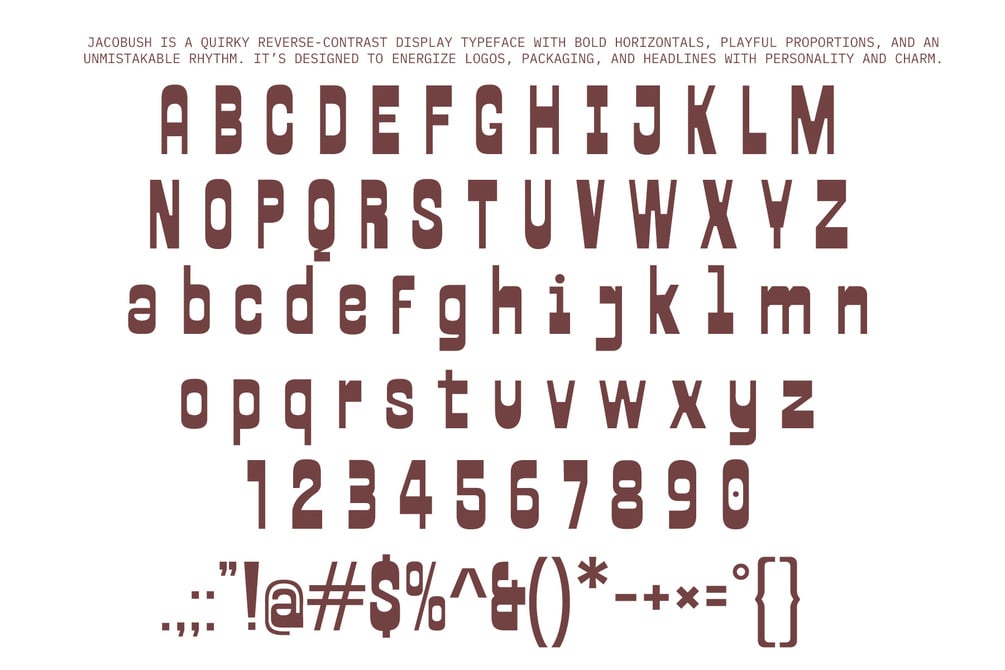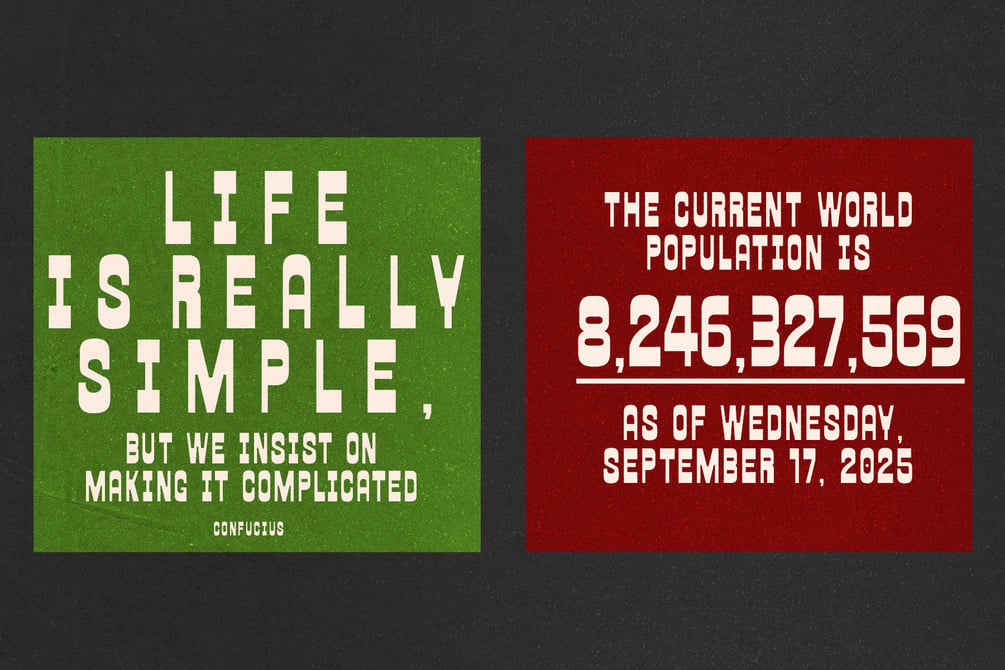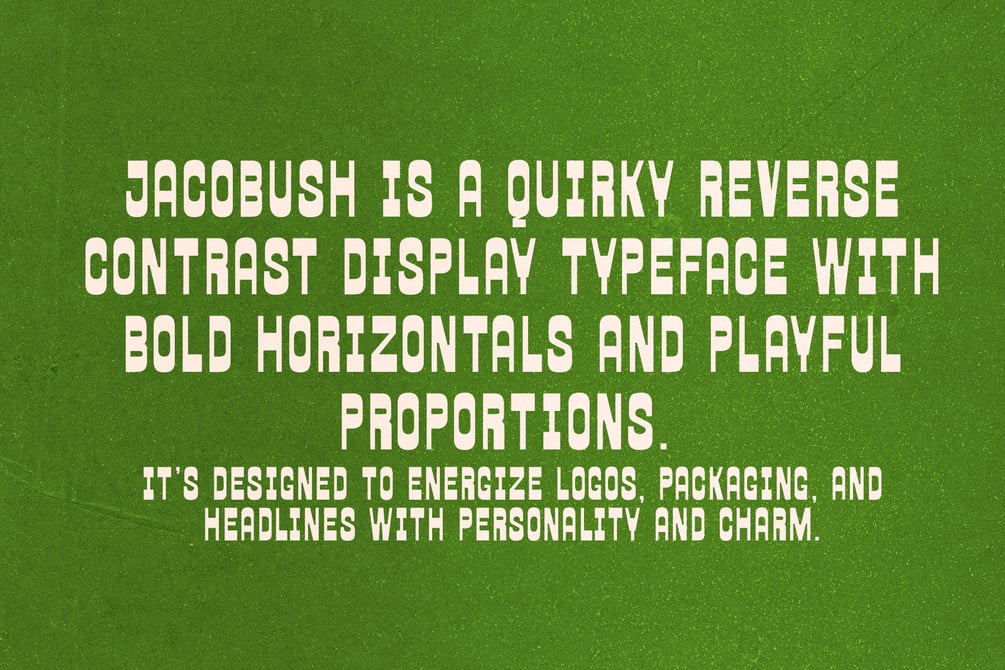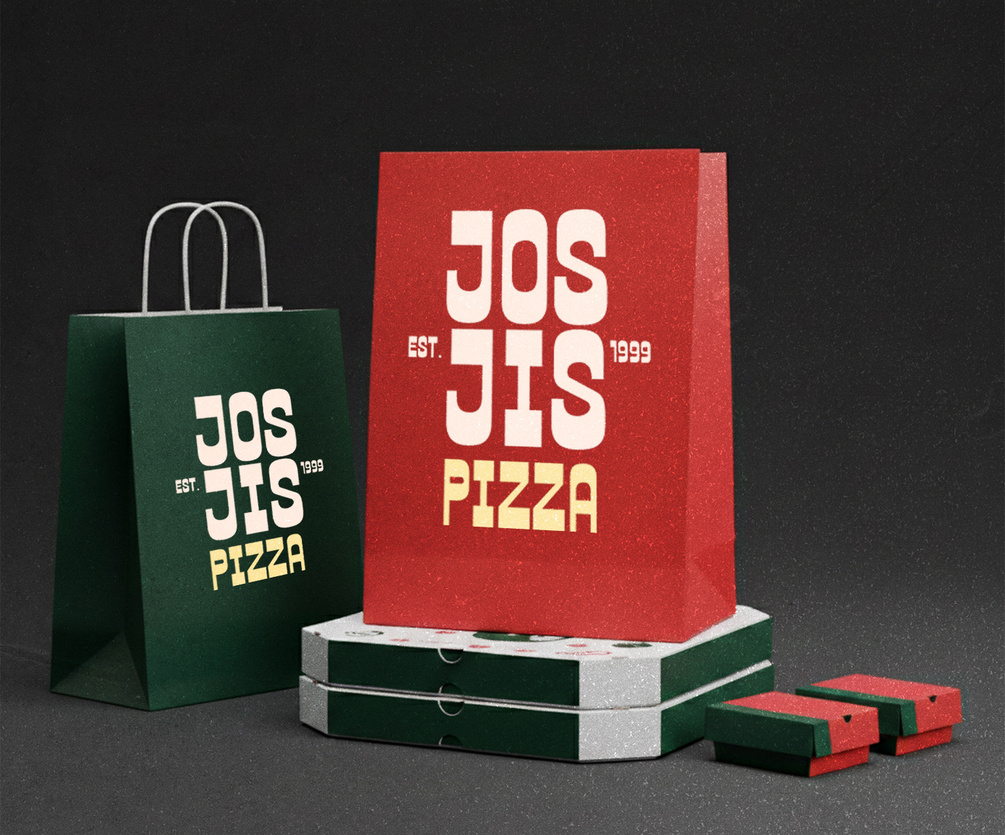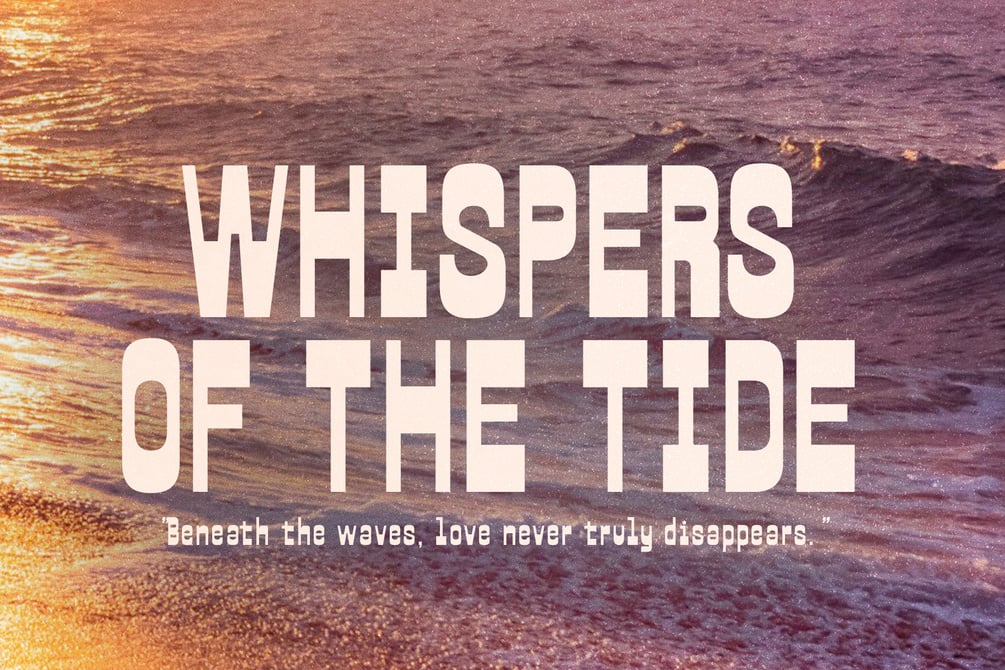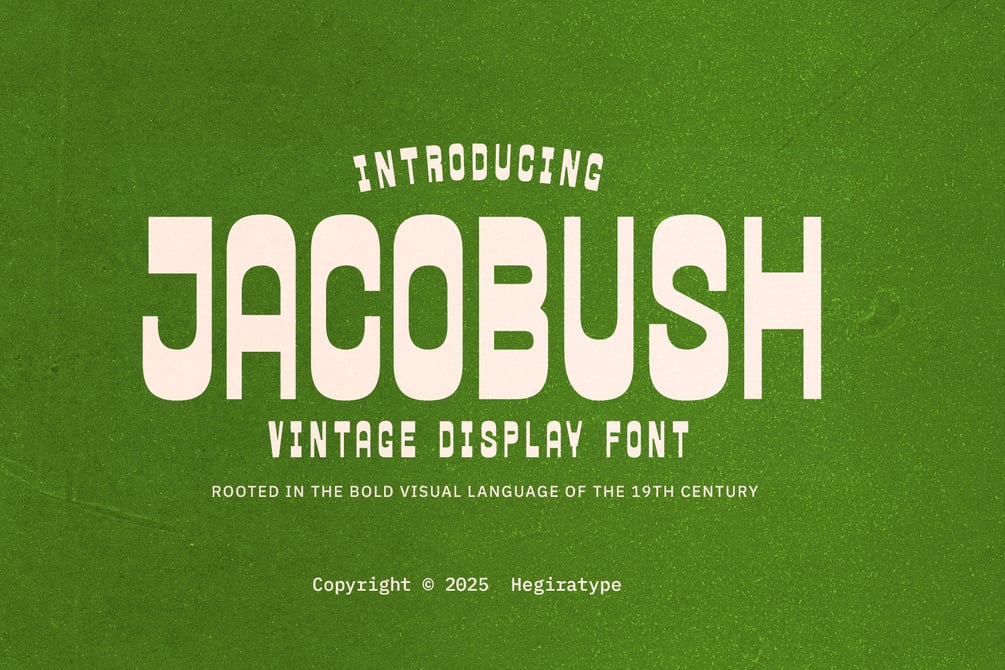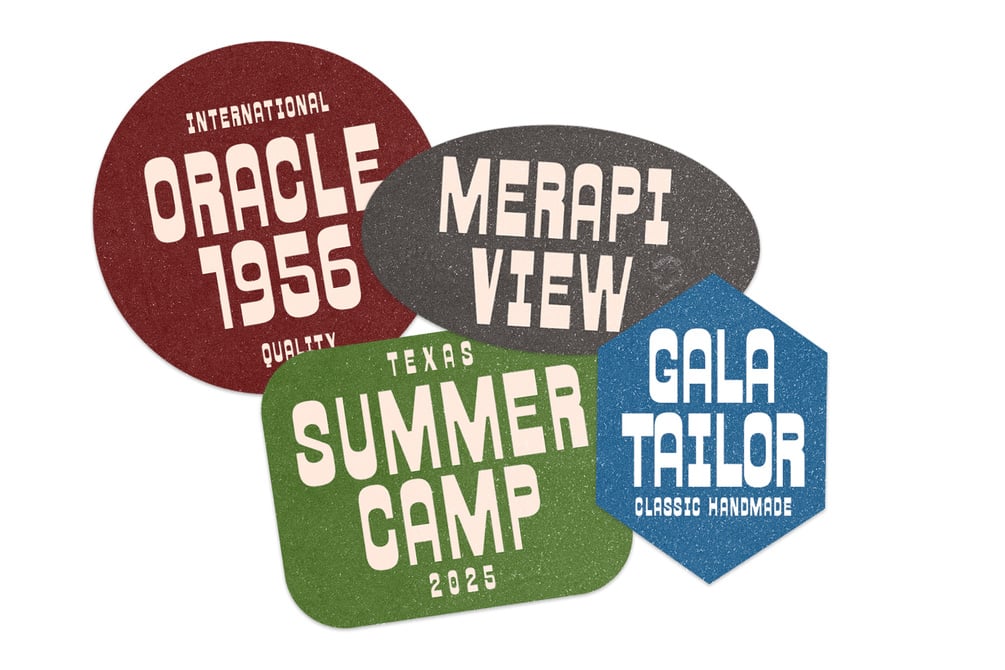
Jacobush
Jacobush is a striking reverse-contrast display typeface that channels the daring spirit of 19th-century wooden letters. Inspired by the oversized and unconventional styles once seen on American posters, billboards, and advertisements, Jacobush transforms that bold legacy into a contemporary voice. With its strong horizontal weight, sharp verticals, and playful proportions, it creates a rhythm that is both unexpected and unmistakably clear. Designed to command attention, Jacobush is the perfect choice for logos, editorial headlines, packaging, and any visual identity that dares to stand apart.
Jacobush transforms that bold legacy into a contemporary voice. With its strong horizontal weight, sharp verticals, and playful proportions.